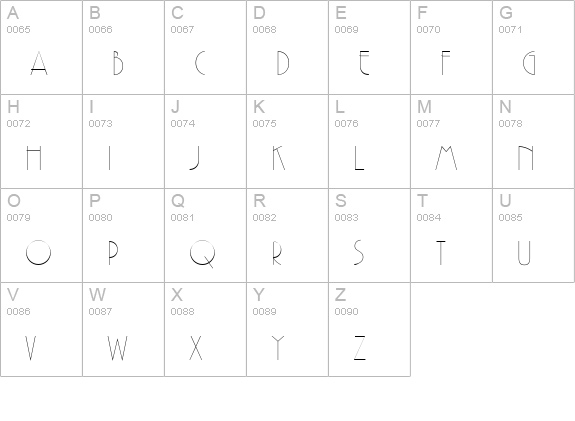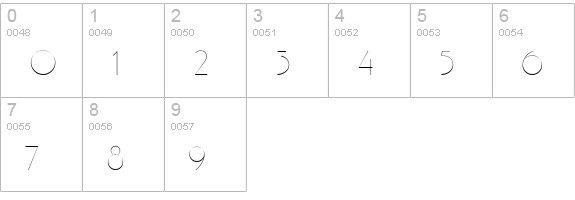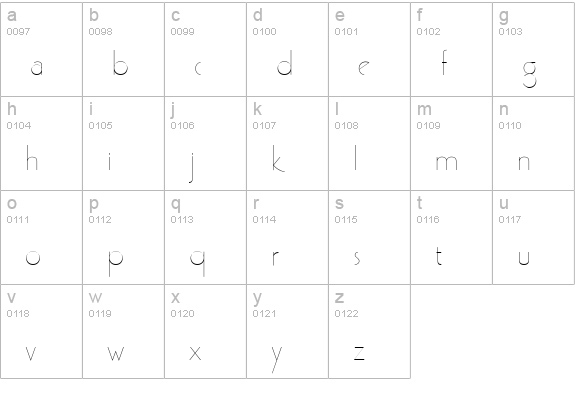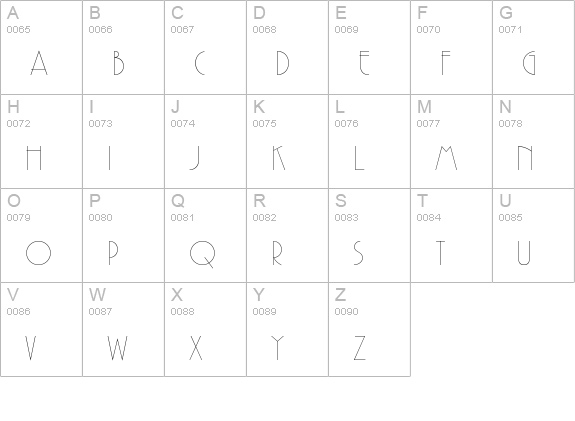
GatsbyFLF Font Details
Introducing GatsbyFLF, a stunning and versatile font that exudes an air of elegance and sophistication. With its timeless charm and flawless letterforms, GatsbyFLF is perfect for adding a touch of class to any design project. This font effortlessly captures the essence of the iconic Art Deco era, transporting you to the glamorous parties of the 1920s. Its sleek lines and intricate details bring a sense of opulence to your typography, making every word feel like a work of art. But what truly sets GatsbyFLF apart is its accessibility. This font is not only visually captivating, but it is also freely available to download at FontsMarket.com. Yes, you read that right - this exquisite font is completely free, allowing you to elevate your designs without breaking the bank. Whether you're designing a luxurious wedding invitation, a sophisticated logo, or a vintage-inspired poster, GatsbyFLF is the perfect choice to make a lasting impression. Its versatility knows no bounds, effortlessly adapting to any design style or concept. With GatsbyFLF, you have the power to effortlessly create visually stunning and timeless designs. So why wait? Head over to FontsMarket.com now, and start incorporating this exceptional font into your creative endeavors. Let GatsbyFLF be your secret weapon for captivating and unforgettable designs.